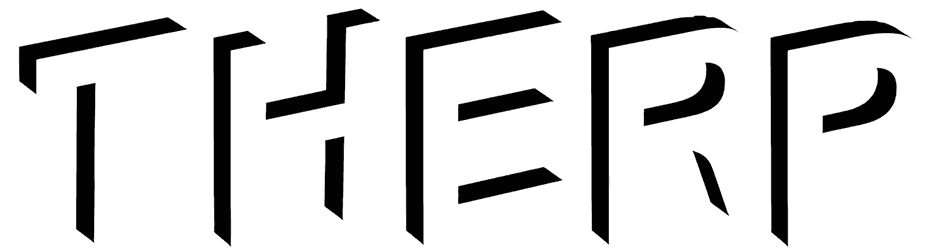
Therp Font
If you really want to add fresh breath to your creative ideas, you should never overlook a marvelous 3D font such as the Therp that comes with a unique style and looks really elegant.
The flattering point about this all-caps masterpiece is that it can make your magazines, street posters, graffiti, digital banners, or social media posts by adding a sense of momentum, vitality, grunge, or vivacity to them. Also, visit our font collection to find more products.
Awesome 3d Font! Therp!